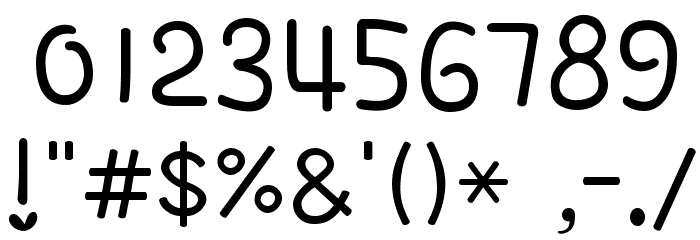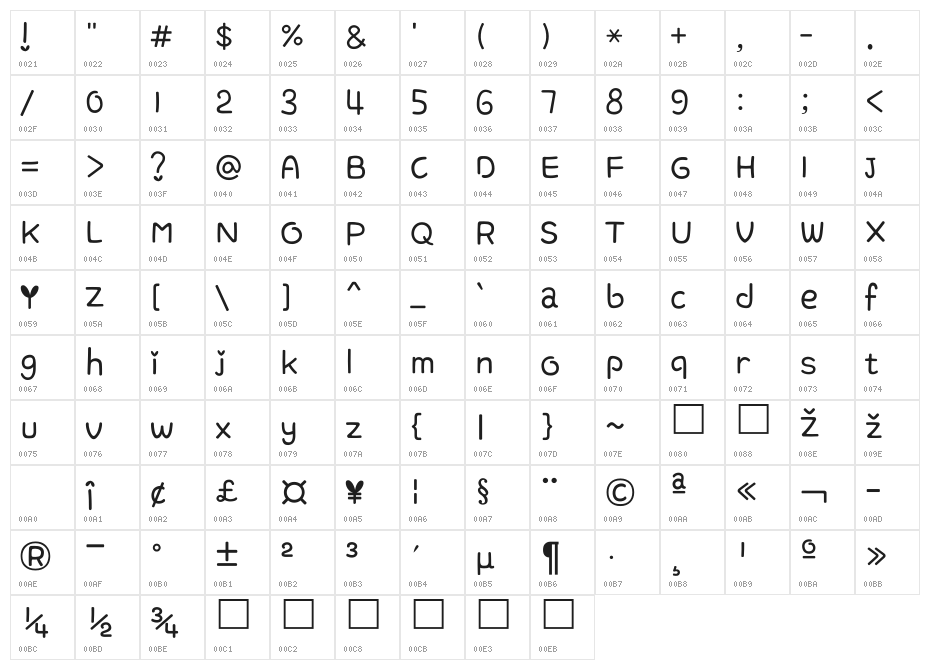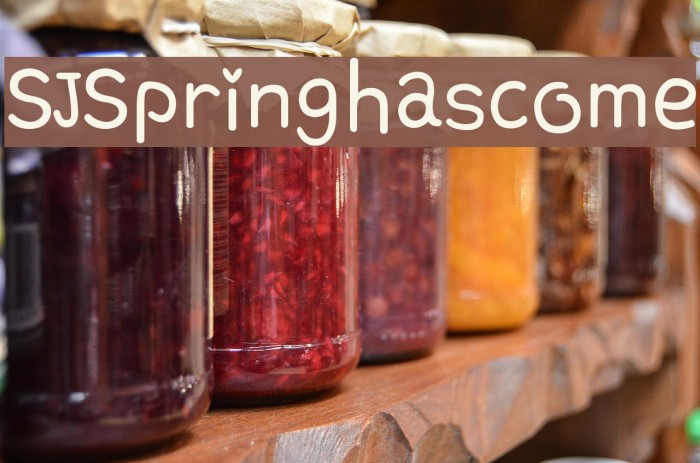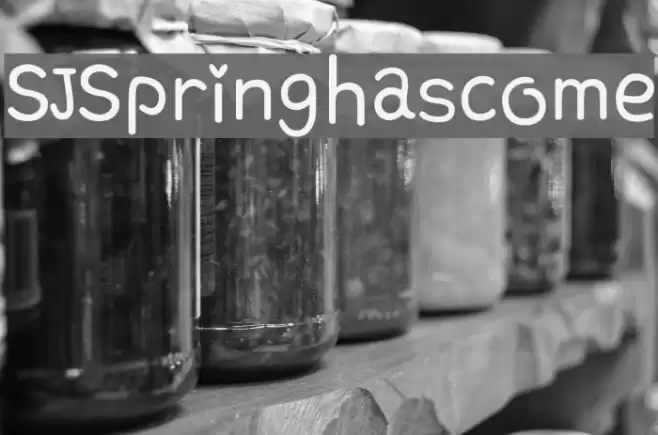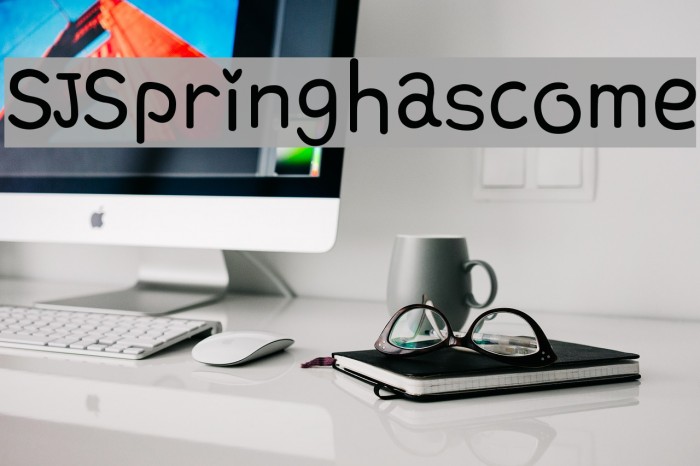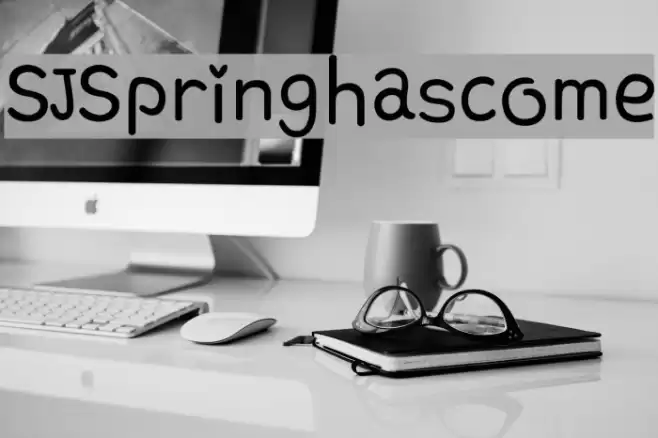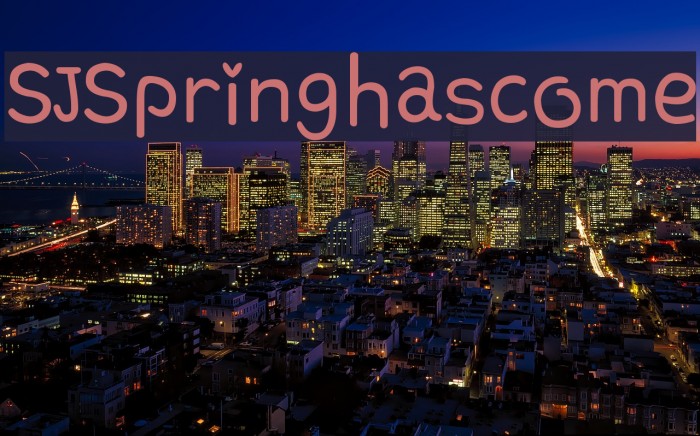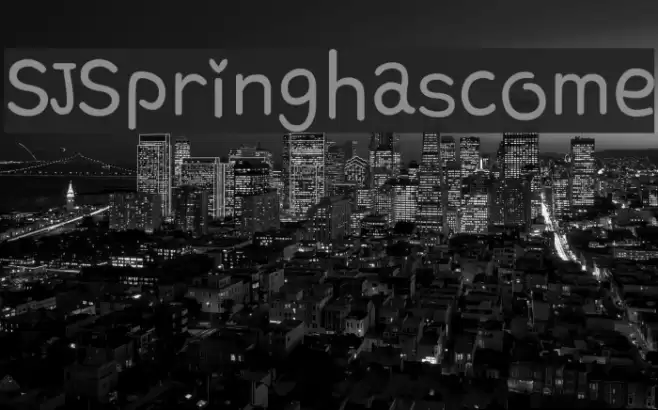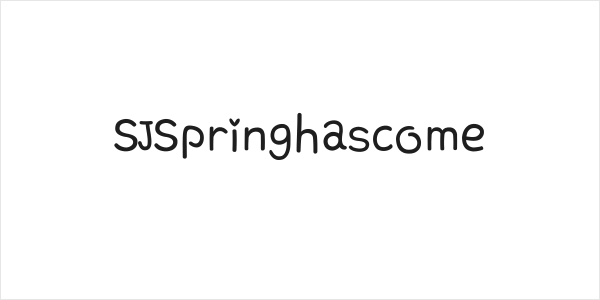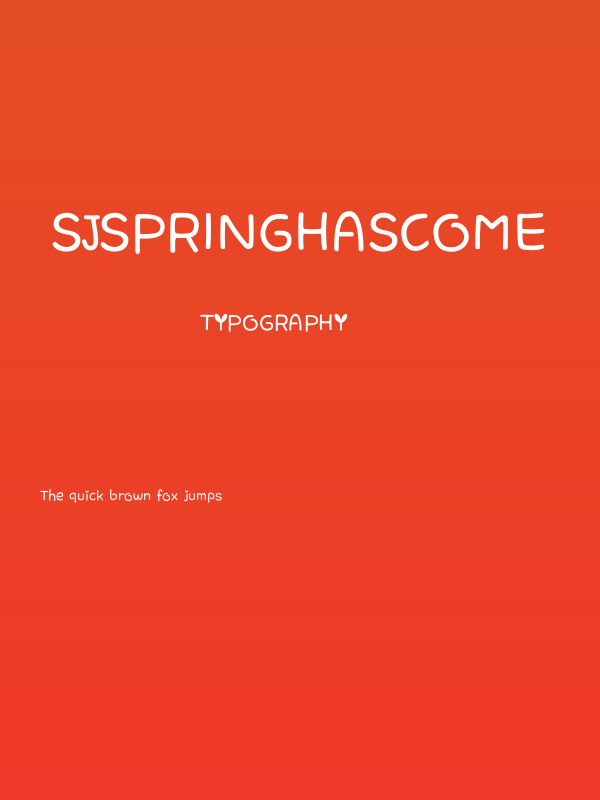
SJSpringhascome Font
SJSpringhascome Description
This playful and whimsical font features rounded edges and a friendly, approachable style. The characters are evenly spaced with a consistent stroke width, giving it a clean and modern appearance. The uppercase and lowercase letters maintain a uniform height, contributing to its balanced look. The numerals are clear and easy to read, while the special characters add a touch of fun with their unique shapes. This font is ideal for projects that require a lighthearted and inviting feel, such as children's books, playful branding, or casual invitations.
| Proposed Projects | Children's books, playful branding, casual invitations, and greeting cards. |